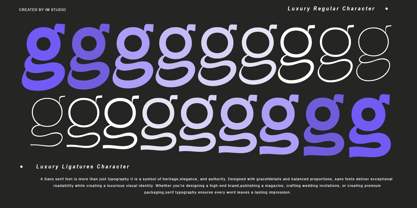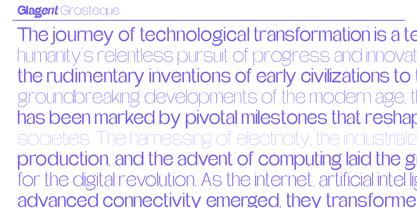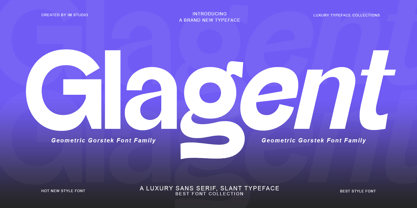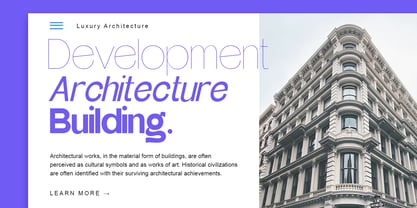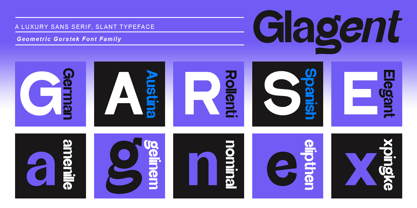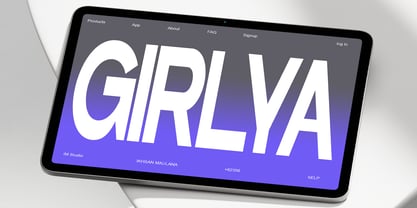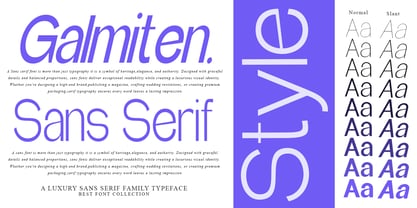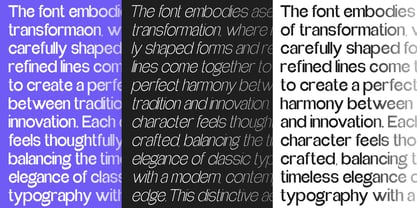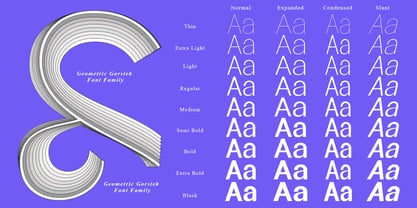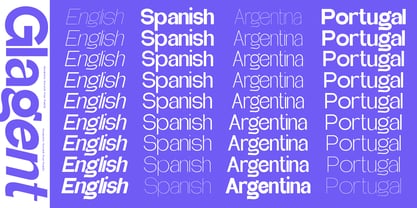
Glagent
by IM Studio
The Glagent Font Family was designed by Ikhsan Maulana and published by IM Studio. Glagent contains 163 styles and family package options. More about this family
Glagent is a modern sans display typeface designed to make a bold and memorable impression. Combining clean geometric construction with elegant curves and distinctive letterforms, it strikes a sophisticated balance between contemporary minimalism and expressive personality. Designed for impactful visual communication, Glagent excels in branding, headlines, advertising, packaging, and editorial design. Its strong presence and subtle details create a striking yet readable aesthetic across a wide range of creative applications.